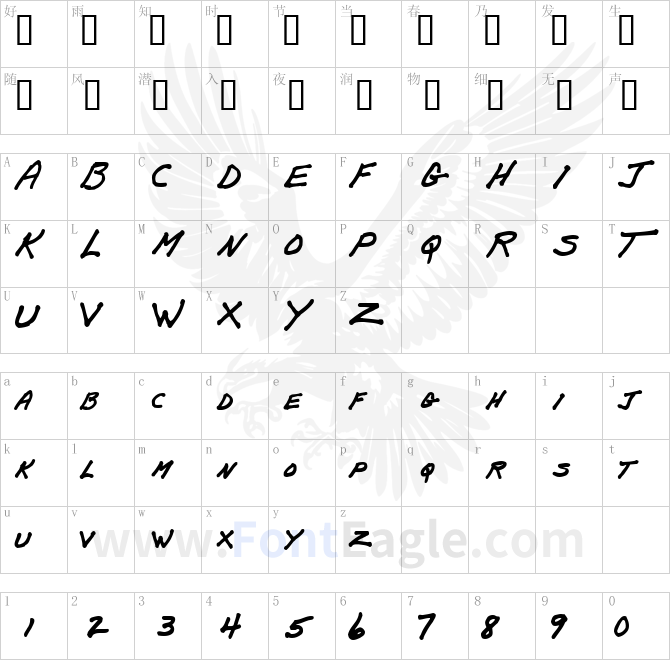
- Font name:PapaMano AOE
- Font Full Name:PapaMano AOE
PapaMano-AOE is a great font, widely used in graphic design, single-page menu design, poster design and other fields, and is deeply loved by designers.PapaMano-AOE download.